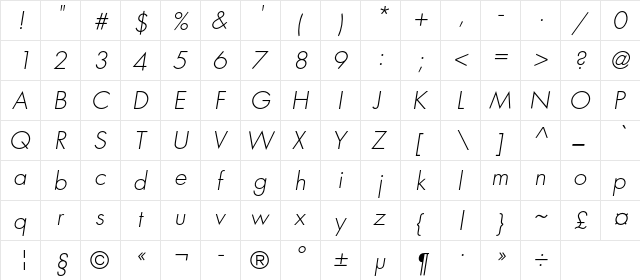
FavoritLightC Italic
Design Context for FavoritLightC Typeface
FavoritLightC is a composed and adaptable typeface that performs quietly and consistently across a wide range of design contexts. The dynamic lean of this cut emphasises speed and emphasis in any layout. The delicate stroke weight brings airiness and refinement to layouts.
Pro Tip: Try FavoritLightC for annotation and caption copy alongside an upright companion — the contrast in angle creates a dynamic but ordered typographic system.